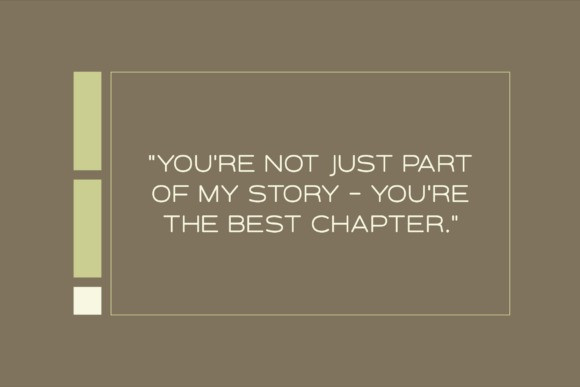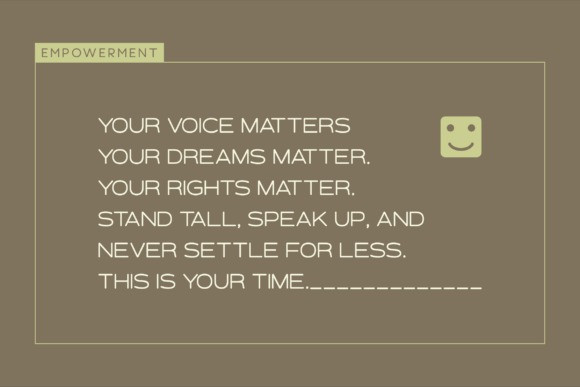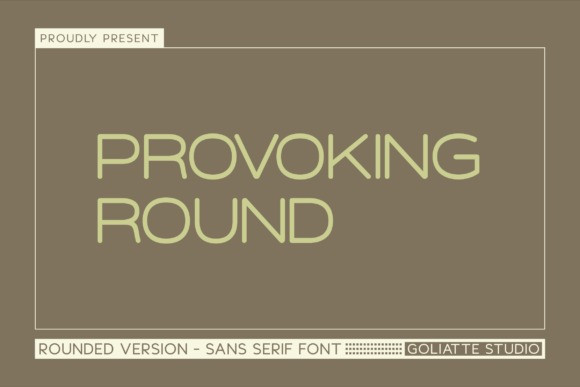
Provoking Round Font
Provoking Round Font is a bold, all-caps sans serif font designed for the modern designer. With its clean lines and minimalist aesthetic, this typeface exudes strength and authority. It is perfect for projects that require a sense of professionalism and impact. Whether you’re designing a logo, website, or print material, ProvokingRound makes a statement with its sharp, crisp edges.
The strong, geometric structure of Provoking Round ensures versatility, from digital interfaces to high-end branding. The all-caps design emphasizes clarity and readability, making it ideal for headlines, posters, and anywhere you need your message to stand out.